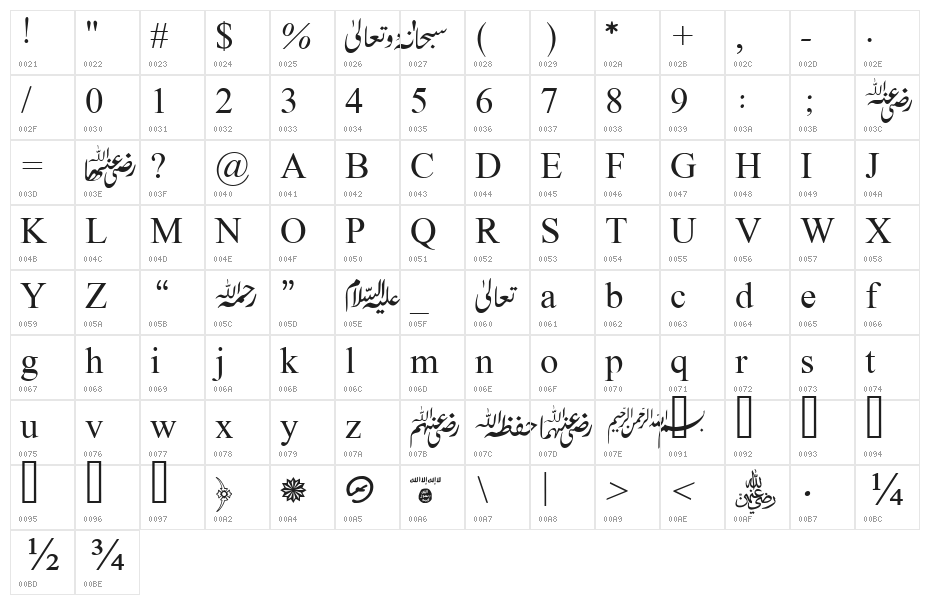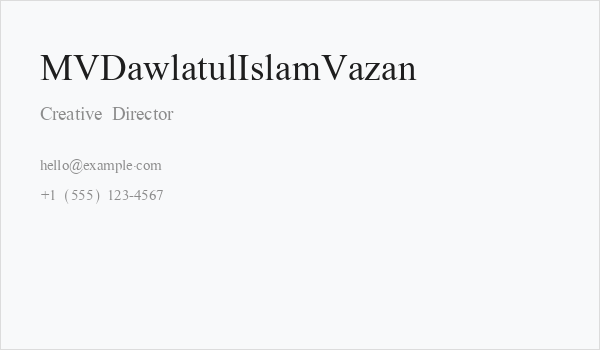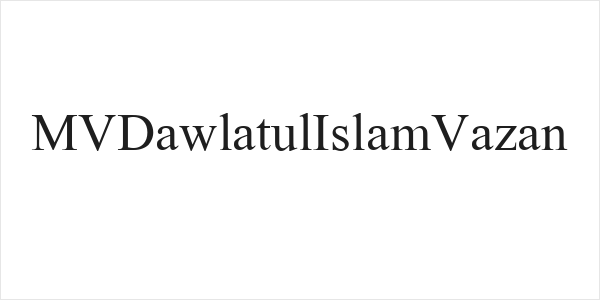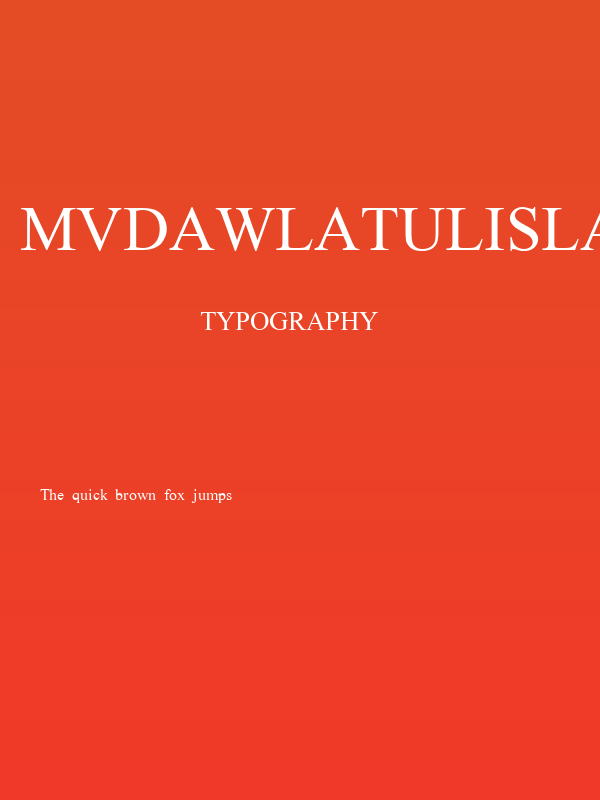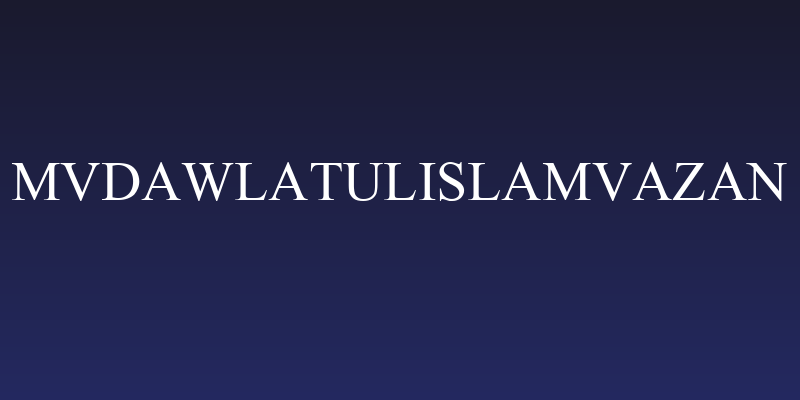
MVDawlatulIslamVazan Font
MVDawlatulIslamVazan Description
This font exhibits a classic serif style with elegant and refined strokes. The uppercase letters are bold and commanding, while the lowercase letters maintain a consistent and harmonious flow. The numerals are clear and well-proportioned, making them easily readable. Special characters are designed with attention to detail, ensuring they complement the overall aesthetic. The font's structure is traditional yet versatile, suitable for a variety of applications. Its balanced contrast between thick and thin strokes adds to its readability and visual appeal.